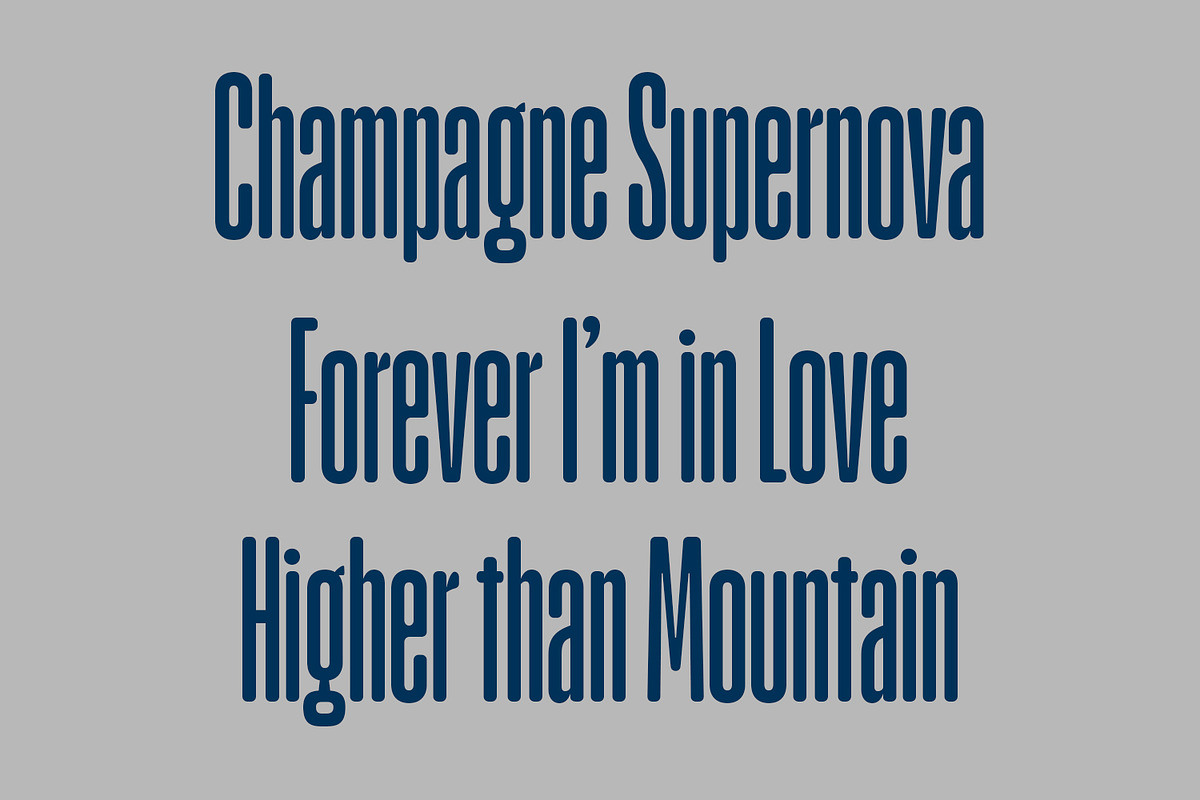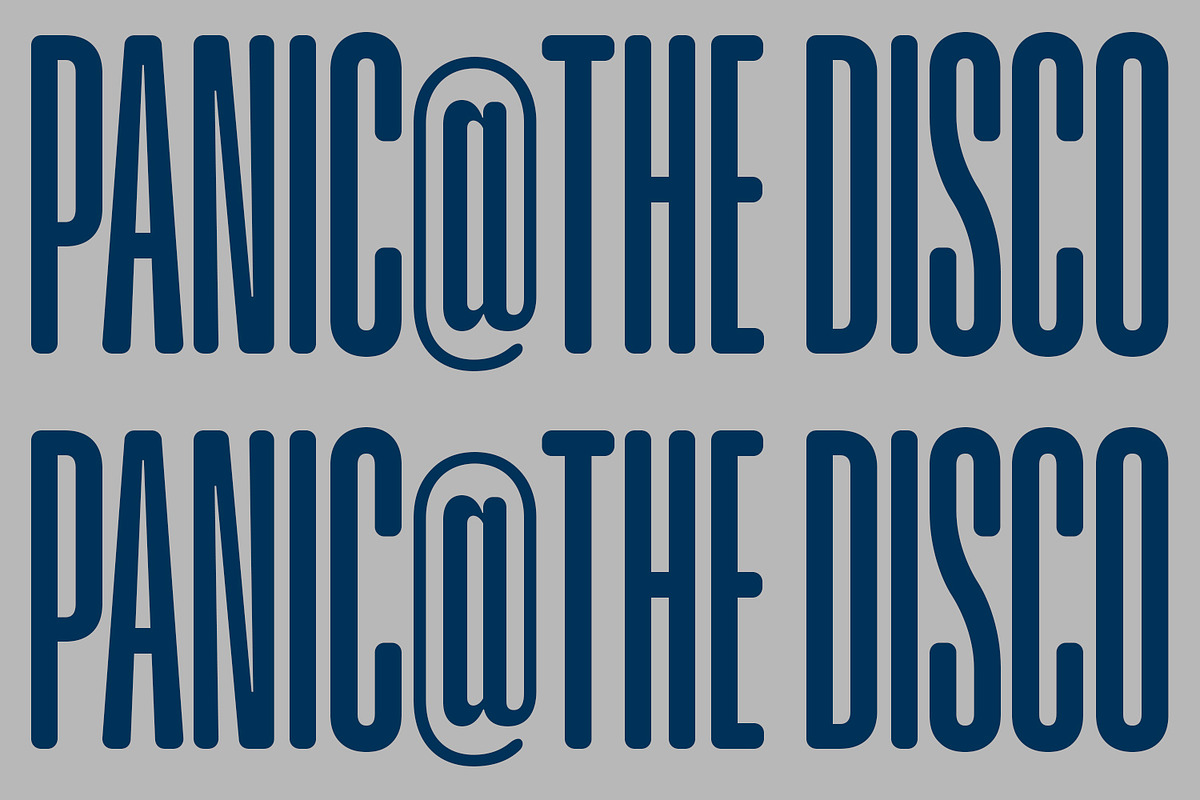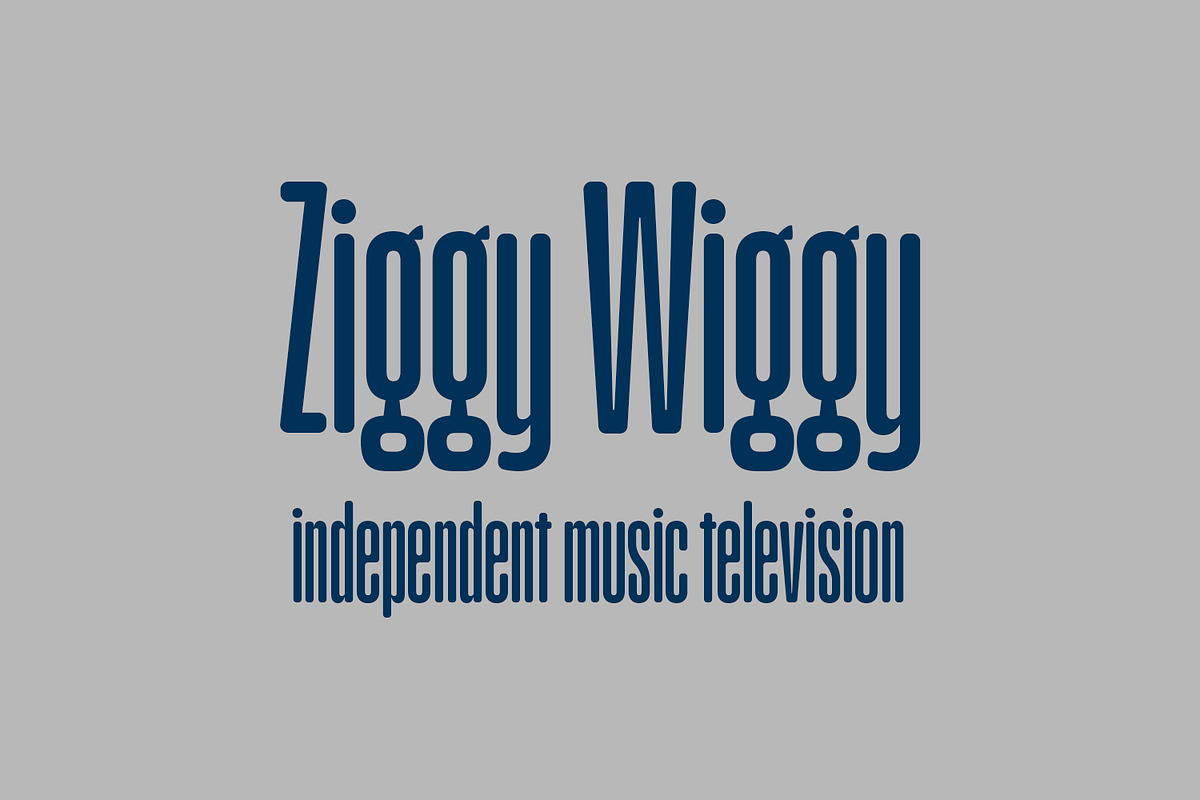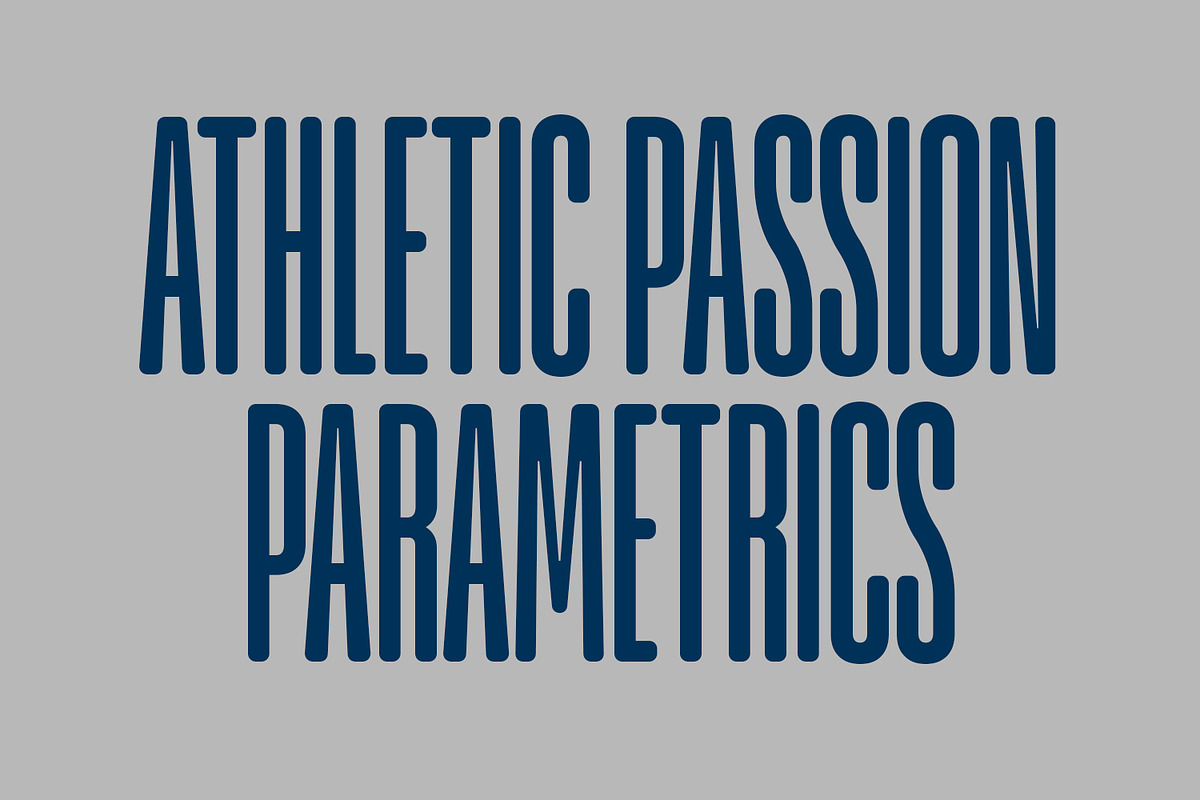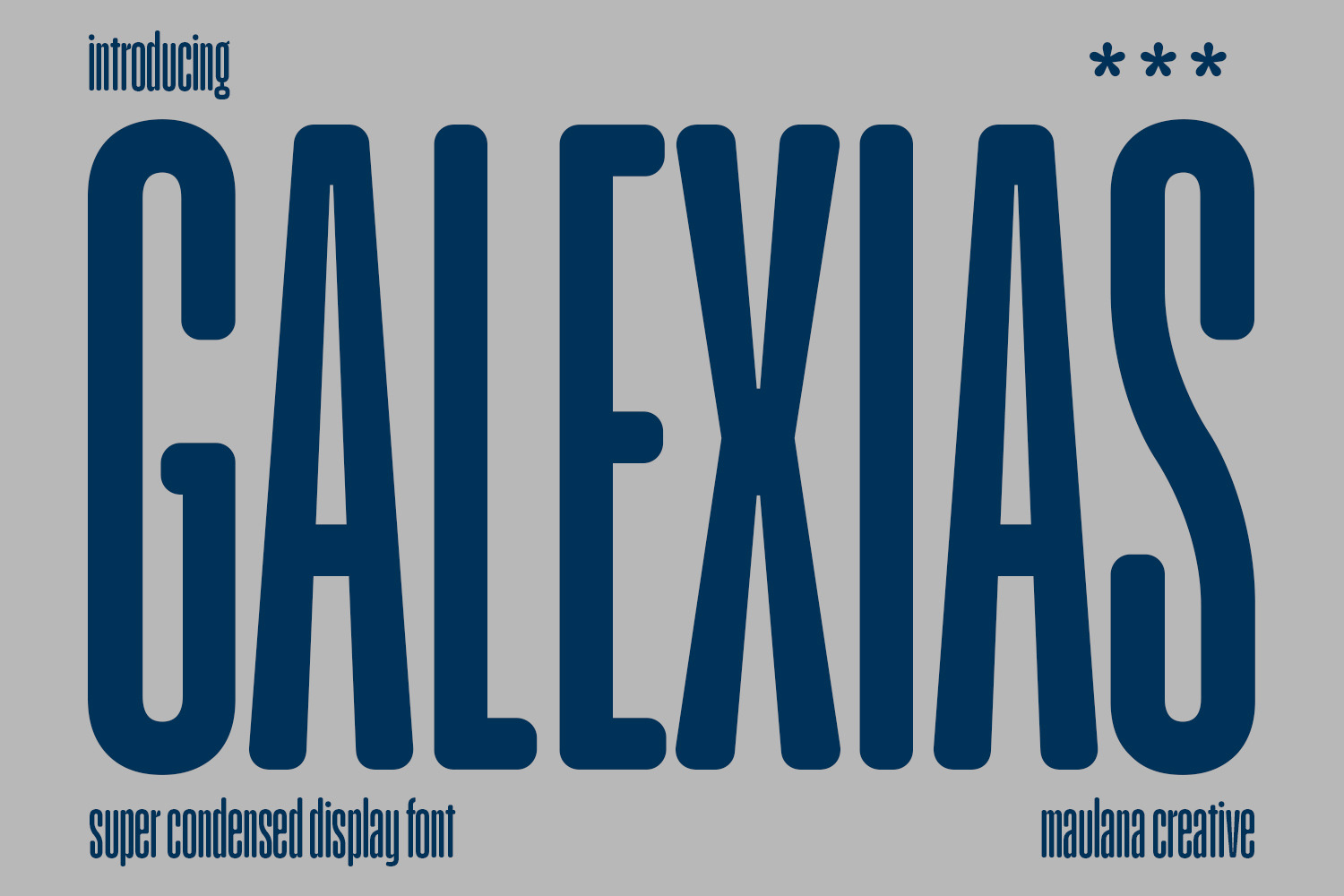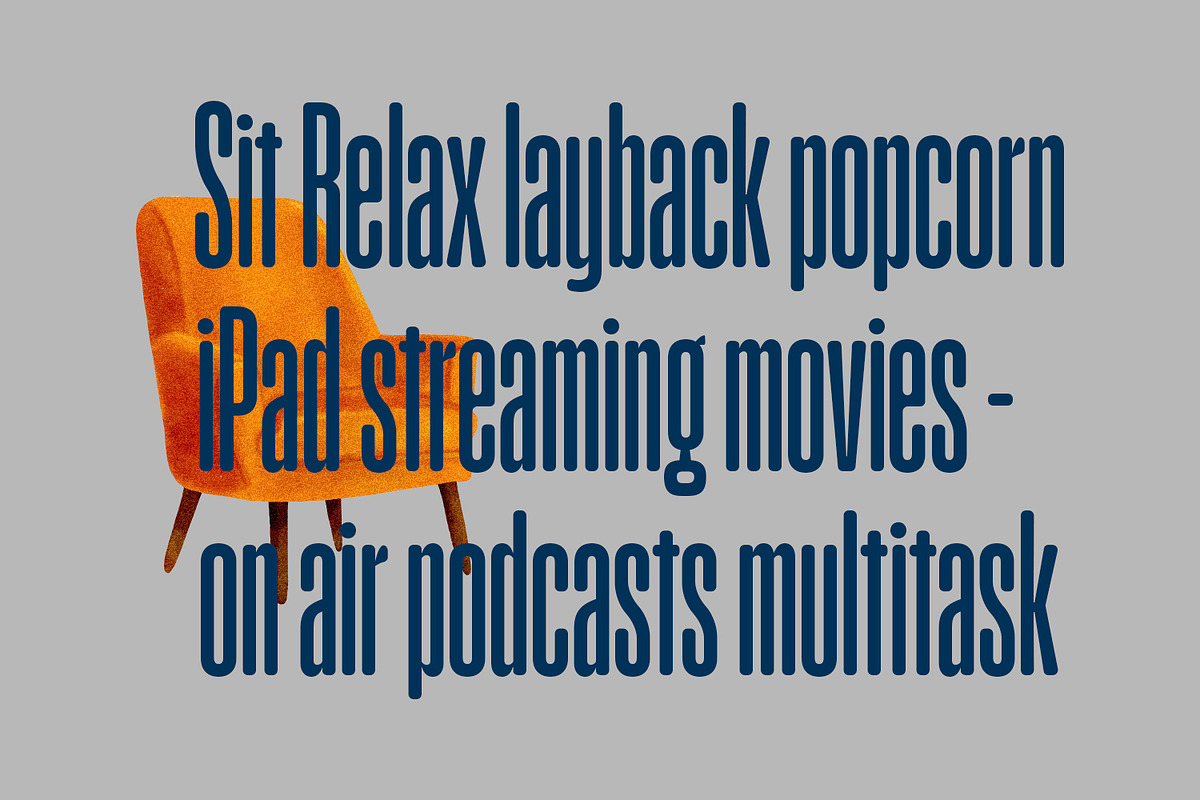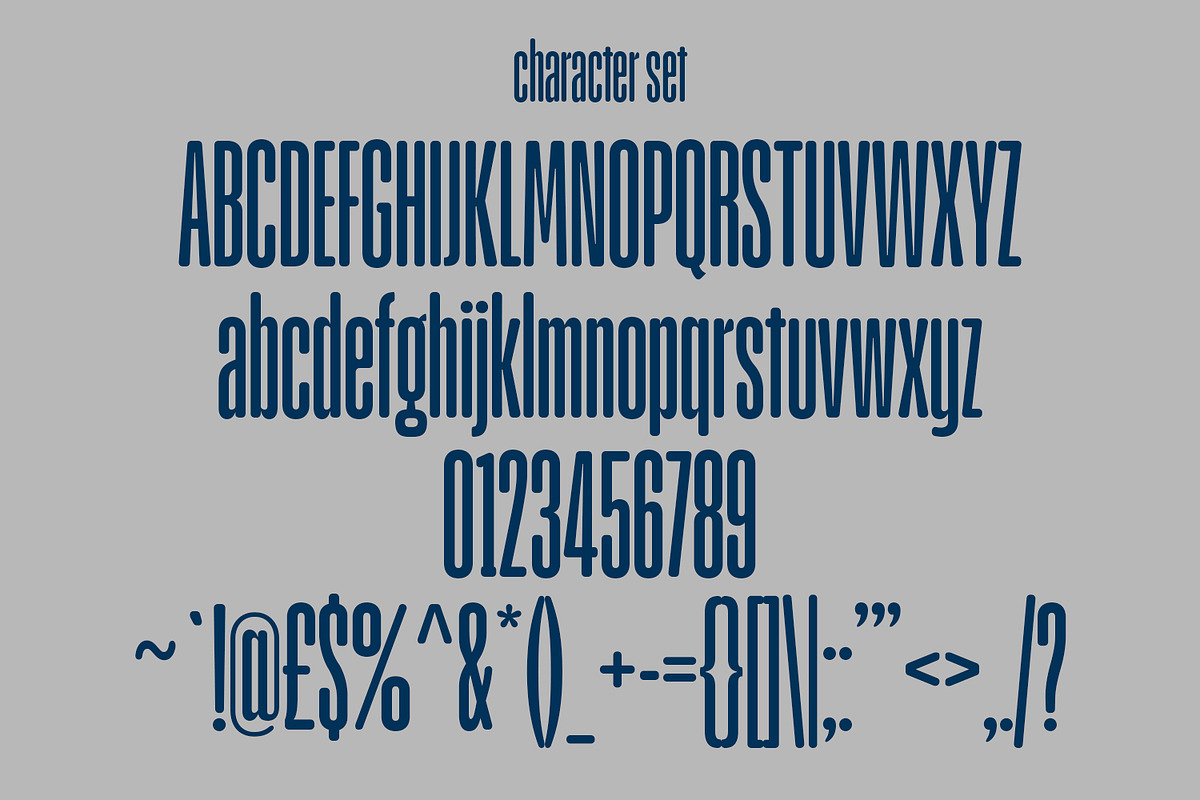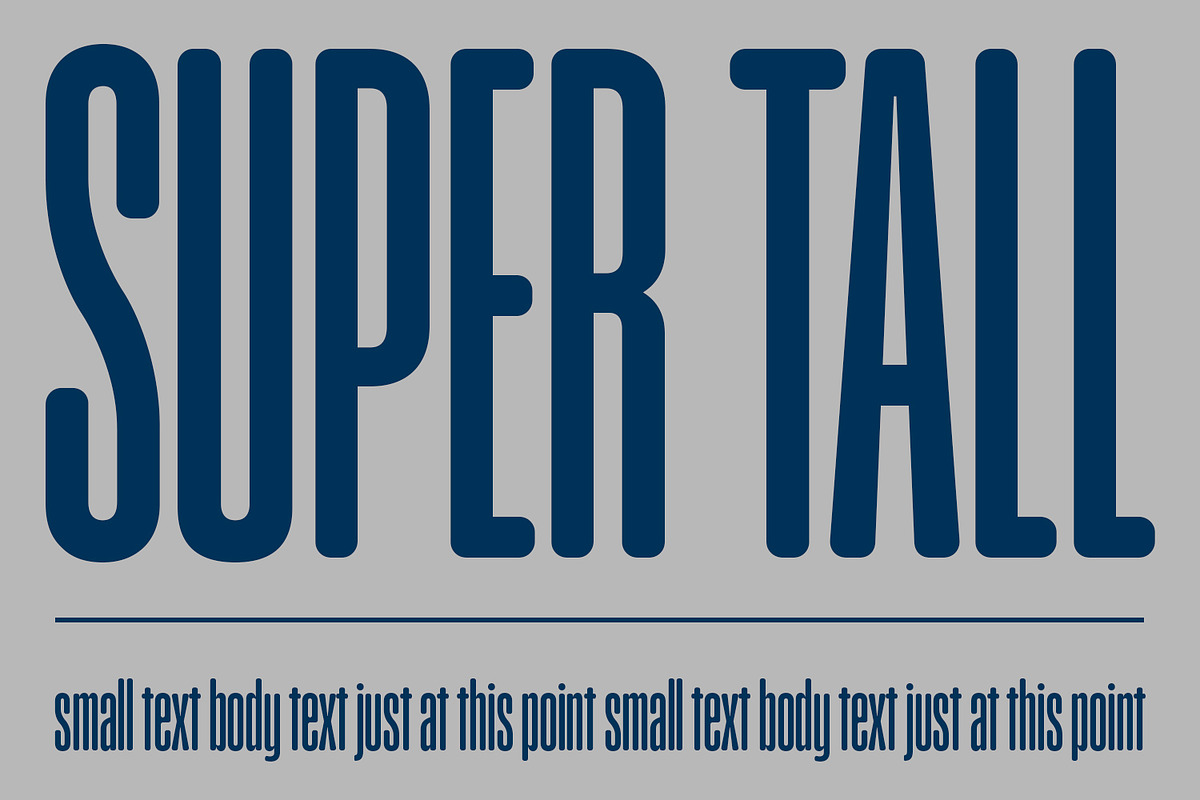
Galexias Condensed Display Font
Galexias is a modern fun sans serif font. With condensed stroke, fun character with a bit of ligatures and alternates. To give you an extra creative work. Galexias font support multilingual more than 100+ language. This font is good for logo design, Social media, Movie Titles, Books Titles, a short text even a long text letter and good for your secondary text font with script or serif. Make a stunning work with Galexias font.